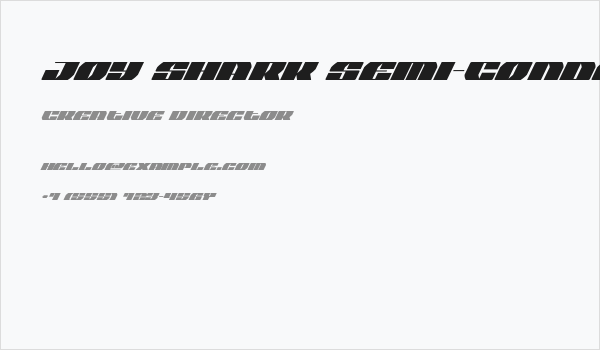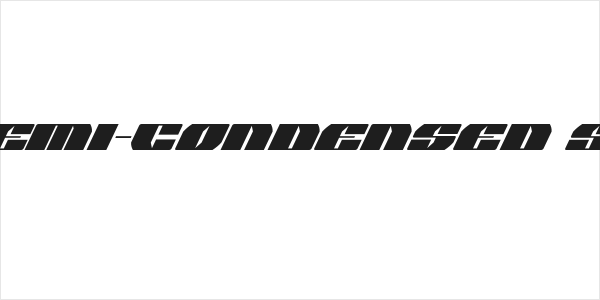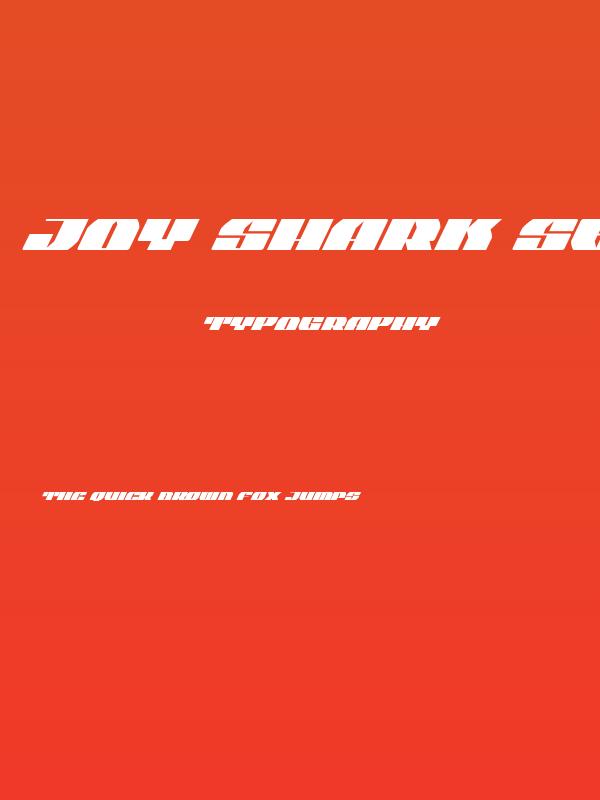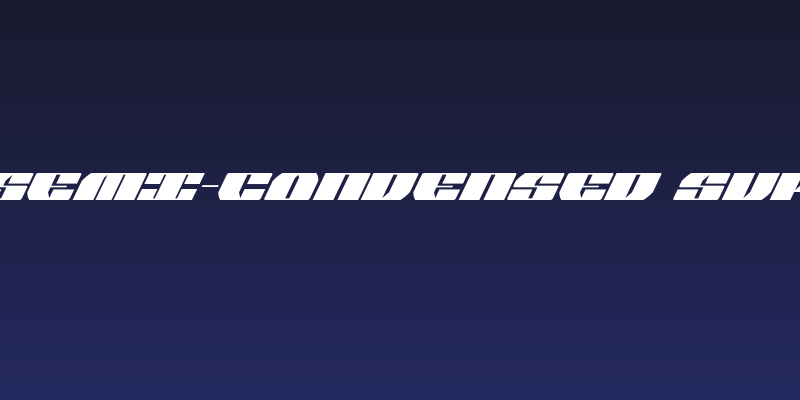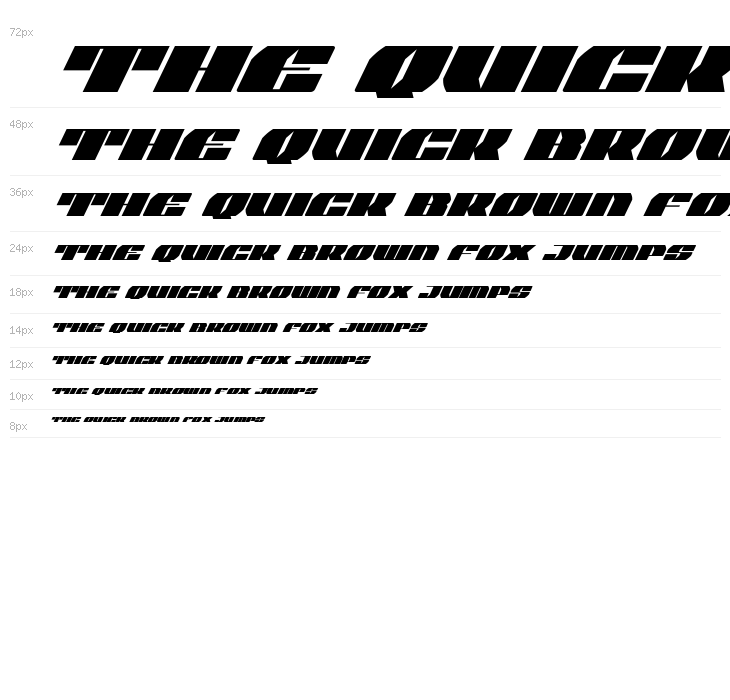
Joy Shark Semi-Condensed Super-Italic Font
Joy Shark Semi-Condensed Super-Italic Description
This font features a bold and dynamic style with a strong italic slant, giving it a sense of movement and energy. The semi-condensed letterforms are tightly spaced, enhancing its compact appearance. The characters have a modern, angular design with sharp edges and a high contrast between thick and thin strokes, making it highly legible and impactful. The uppercase and lowercase letters maintain a consistent style, while the numerals and special characters integrate seamlessly, providing a cohesive look across all text. This font is ideal for projects that require a bold statement and a modern aesthetic.
Proposed ProjectsPerfect for sports branding, dynamic posters, modern logos, and eye-catching headlines.